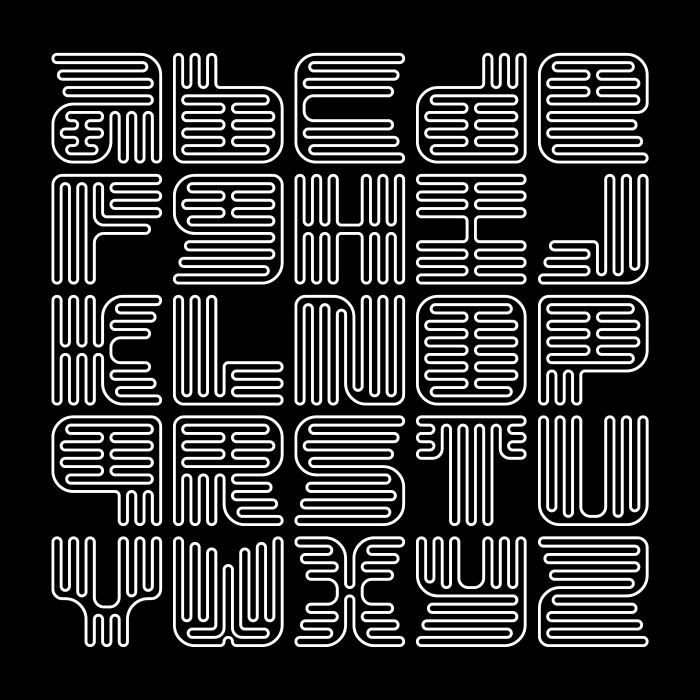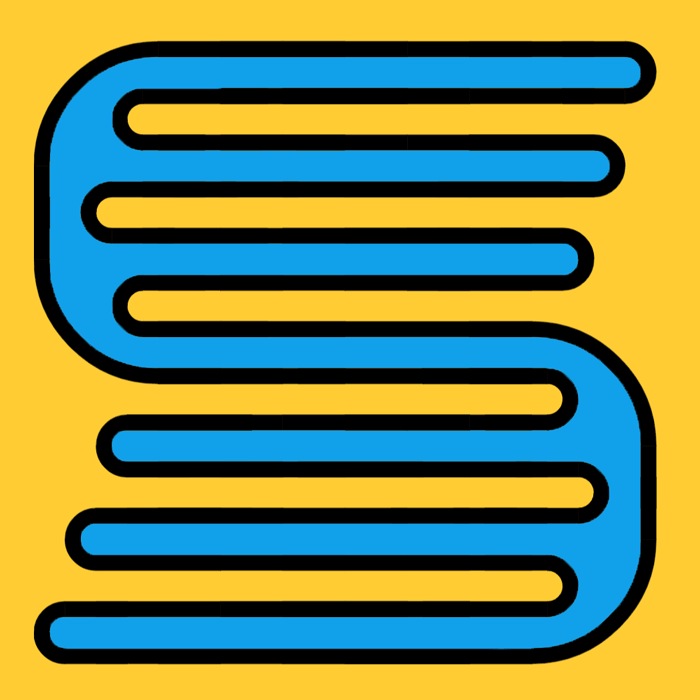
Very unique and clever design
Lovely. Looks almost like a heating element or radiator.
@four: Amazing, fresh and new design, away from your usual fonts but closer to some of your other artwork, IMHO. A delight to watch. Congrats, compañero!
Great work! Reminds me of Nazca lines.
Quite a detailed outline font, looks grill pan-adjacent and also reminscent of older Chinese writings. Nice! Would be cool if there's an actual pan that you can grill words on your steak!
A fantastic outline font with extreme surface to volume ratio*. The "strokes" are curiously constituted by deep infoldings or long projections, if you like. Care was taken to make the outline continuous; thus the inside never communicates with the outside (see my colour sample).  Furthermore, there are no inside island pieces; every glyph could be cut out in a single piece (except the ones with diacritics). I hope someone with manufacturing tools gets inspired and cuts these letters out of wood or metal sheet.
Since it is a unicase font, it would be nice to have capitals for A, B, D, and Q as alternates. The punctuation ( . , " ) could be a bit heftier, perhaps having just one fold. The ring above the a (å) should be a hollow ring instead of a dot (ȧ). All in all it is an awesome work; TP well deserved. 10/10
(*In a flat 2D world it would be more sensible to say circumference to area ratio.)
and maybe check Ý and Ÿ; Ý is missing the letter, and Ÿ is missing the diacritic
@Frodo7 Thank you for another in-depth analysis. I have added alternates for A,B,D and Q. I'm still thinking about how to best approach punctuation and rings.